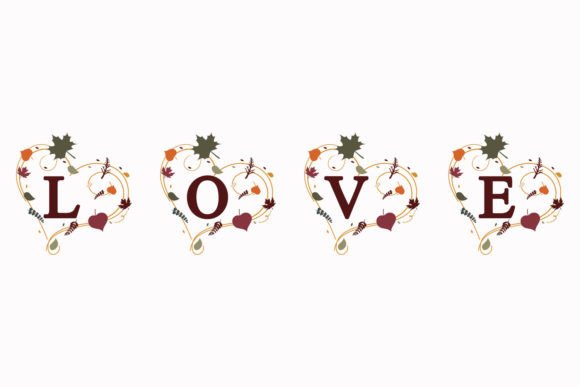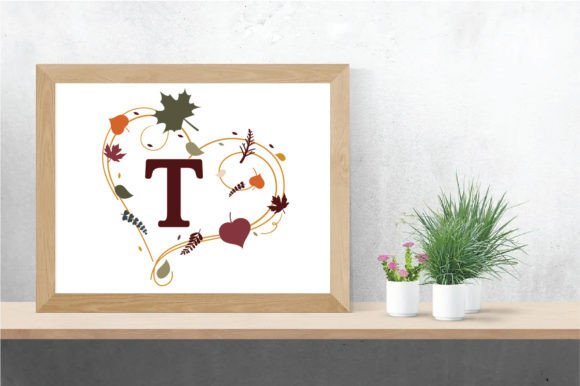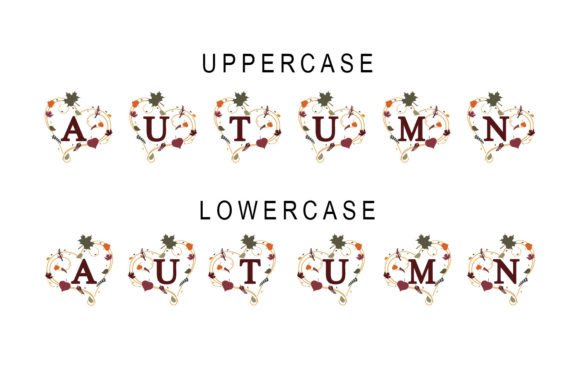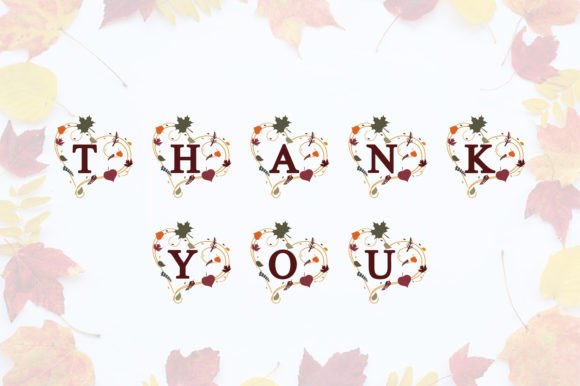
Fall in Love with the Perfect Font: A Comprehensive Guide to Fall in Love Font
Are you a designer or crafter looking for the perfect font to elevate your fall designs? Look no further than the Fall in Love Font, a beautiful and remarkably delicate and stylish decorative font that’s sure to capture your heart. In this article, we’ll dive into the world of Fall in Love Font, exploring its features, benefits, and uses, as well as provide tips and tricks for getting the most out of this stunning font.
What is Fall in Love Font?
Fall in Love Font is a color monogram font that’s specifically designed for fall designs. With its delicate and stylish aesthetic, this font is perfect for creating beautiful and eye-catching projects, from invitations and greeting cards to social media graphics and more. As a color font (Opentype-SVG), Fall in Love Font is compatible with a range of popular design software, including PhotoShop, Illustrator, Silhouette, and Inkscape.
Key Features of Fall in Love Font
- Delicate and stylish design: Fall in Love Font features a remarkably delicate and stylish design that’s perfect for fall designs.
- Color monogram font: This font is a color monogram font, making it ideal for creating beautiful and eye-catching projects.
Benefits of Using Fall in Love Font
So why choose Fall in Love Font for your design projects? Here are just a few benefits of using this stunning font:
- Elegant and sophisticated look: Fall in Love Font adds an elegant and sophisticated touch to any design project, making it perfect for fall designs.
- Versatile: This font is perfect for a range of design projects, from invitations and greeting cards to social media graphics and more.
Tips and Tricks for Using Fall in Love Font
To get the most out of Fall in Love Font, here are a few tips and tricks to keep in mind:
- Experiment with different colors: As a color font, Fall in Love Font offers endless possibilities for color experimentation. Try out different color combinations to find the perfect look for your design project.
- Use it for fall designs: Fall in Love Font is specifically designed for fall designs, so be sure to use it for projects that showcase the beauty of the season.
- Pair it with other fonts: For added visual interest, try pairing Fall in Love Font with other fonts to create a unique and eye-catching design.
| Font Name | Fall in Love Font |
In conclusion, Fall in Love Font is a beautiful and remarkably delicate and stylish decorative font that’s perfect for fall designs. With its compatibility with popular design software and its elegant and sophisticated look, this font is sure to elevate any design project. Whether you’re a designer or crafter, Fall in Love Font is a must-have font for your design arsenal. So why wait? Fall in love with this stunning font today and take your design projects to the next level!